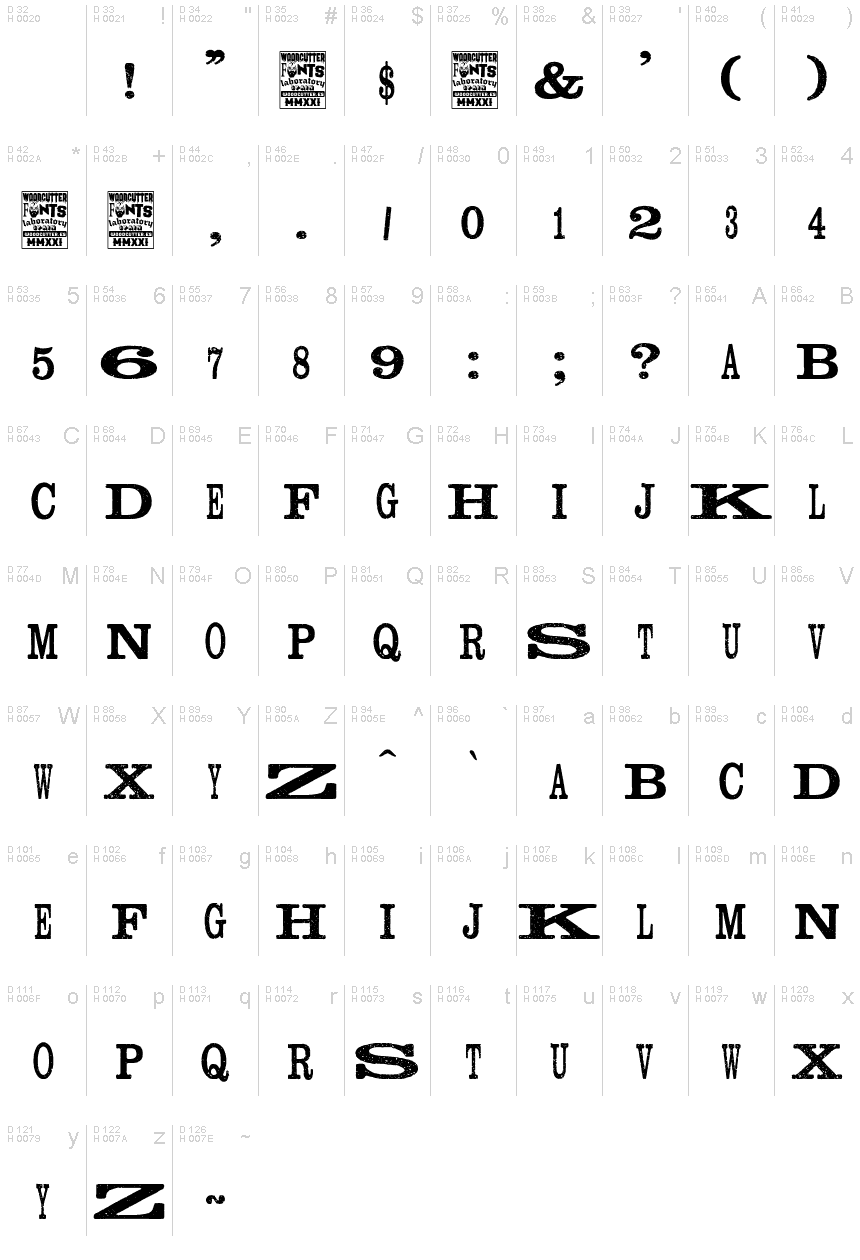
Madness Press
Madness Press, designed by Woodcutter, is a bold and eroded display font that commands attention. Its expanded width adds an extra layer of impact to any project, making it perfect for eye-catching headlines, posters, and branding materials. The rough and grungy style of Madness Press gives a vintage feel to designs, while still remaining modern and edgy. This semi-bold typeface is ideal for creating unique logos or adding a touch of personality to social media graphics. Whether you're designing for a music festival or an upcoming sale event, Madness Press will give your project the distinct look it deserves.